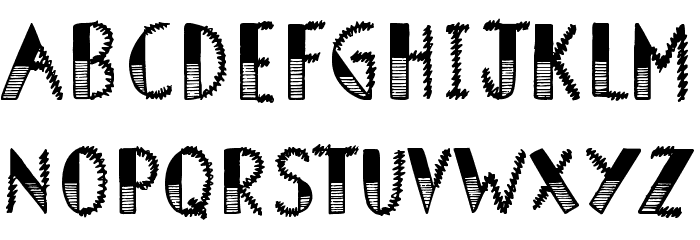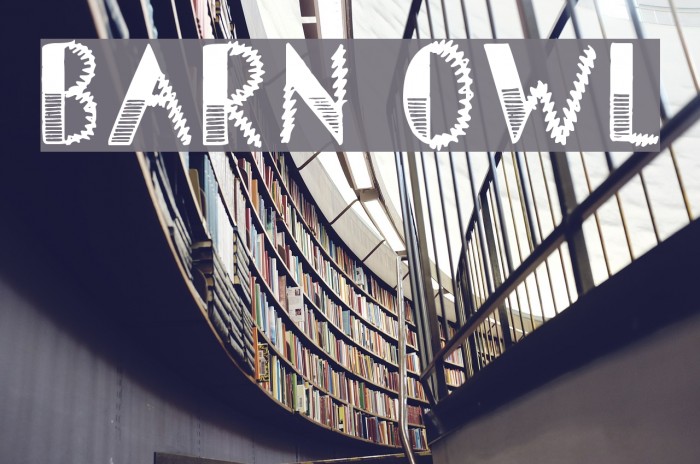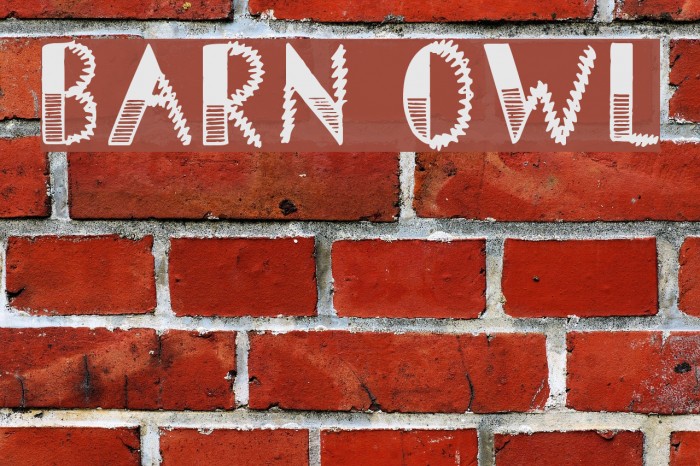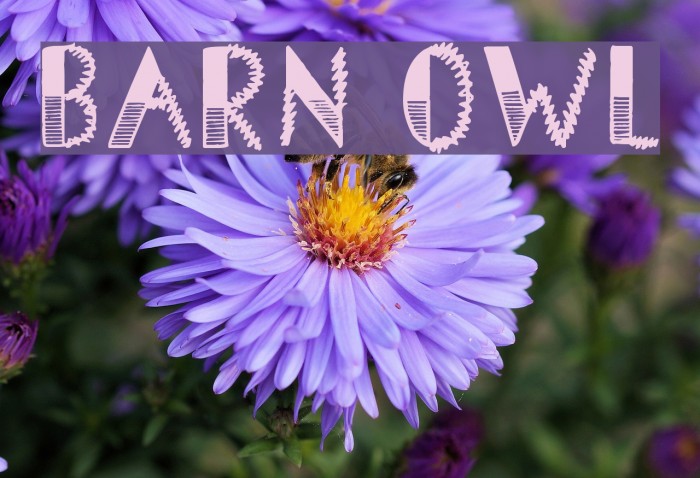
Barn Owl Font
This font features a bold and playful design with a unique zigzag pattern along the edges of each character. The letters are uppercase and exhibit a strong, decorative style that captures attention. The interior of each letter is filled with alternating stripes, adding a dynamic and textured appearance. This font is ideal for creative projects that require a distinctive and eye-catching typeface. The boldness of the characters ensures readability while maintaining an artistic flair. The overall design is both modern and whimsical, making it suitable for various artistic and promotional uses.
A bold, decorative font with zigzag edges and striped interiors.
- Font: Barn Owl
- Proposed Projects: Ideal for posters, logos, children's books, and creative branding.
- Overall Style: Modern, Whimsical